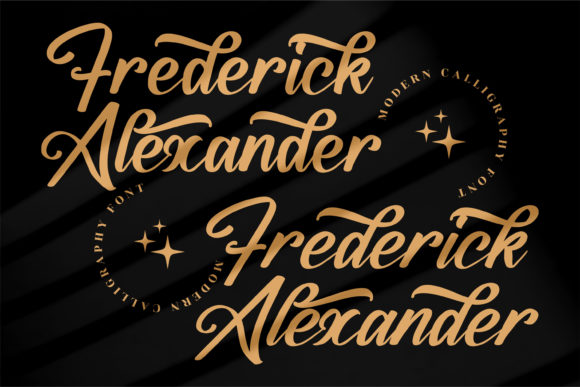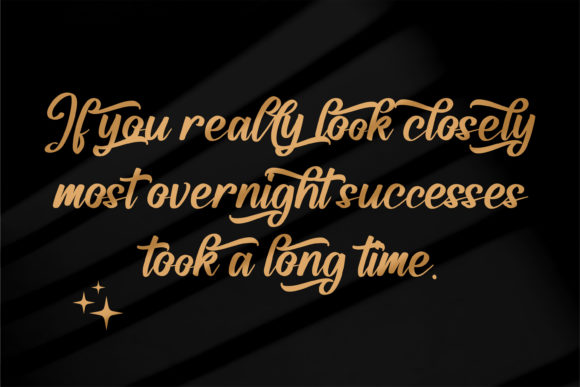
Frederick Alexander is a lovely and timeless handwritten font. It is the best choice for creating eye catching logos, branding and quotes. Frederick Alexander is PUA encoded which means you can access all of the glyphs and swashes with ease!Β